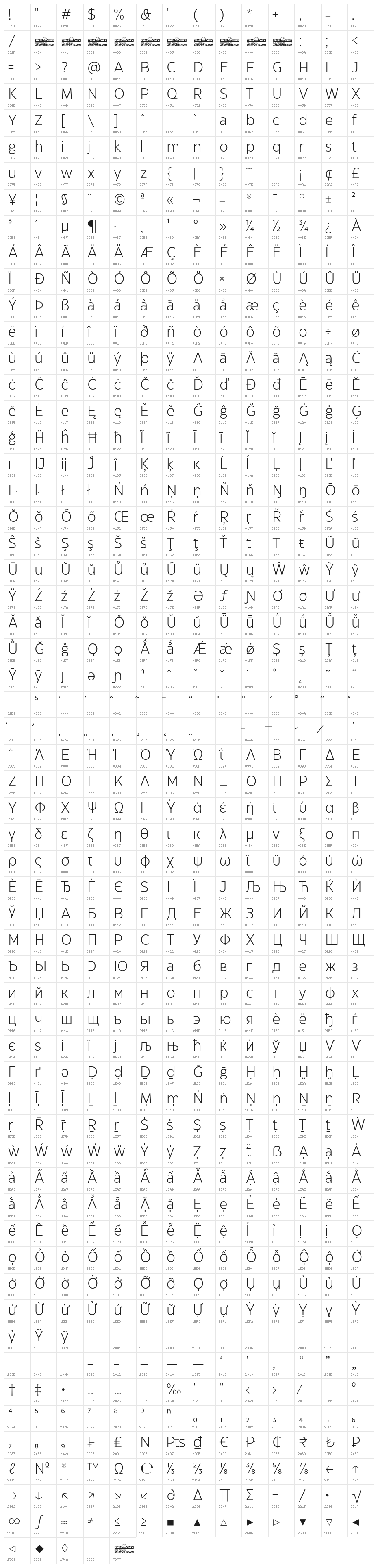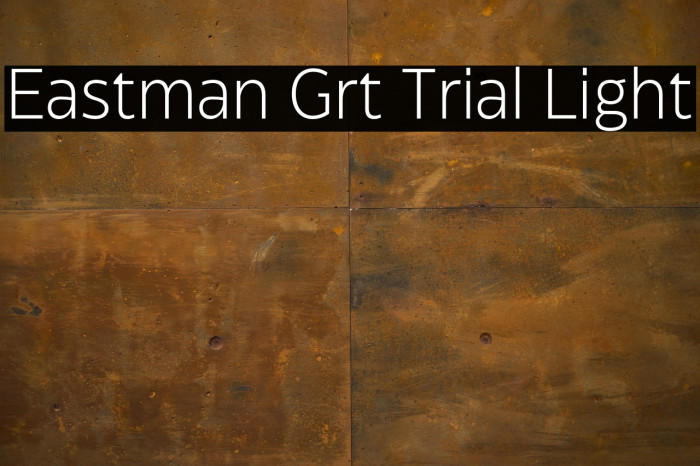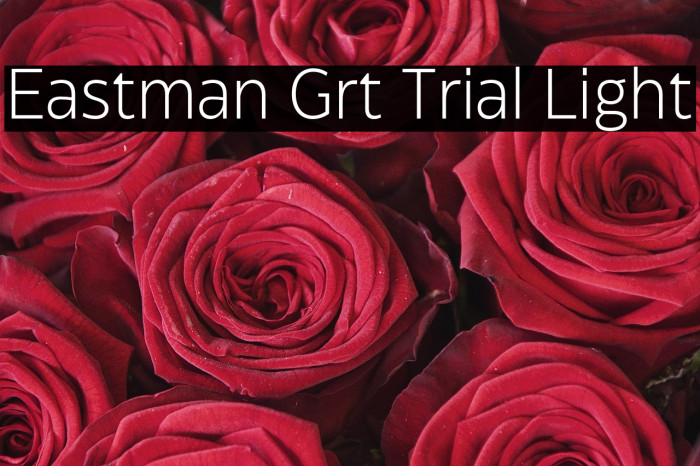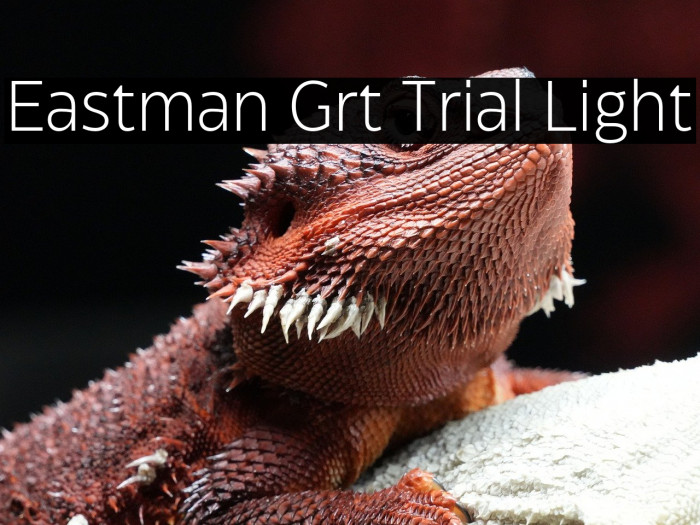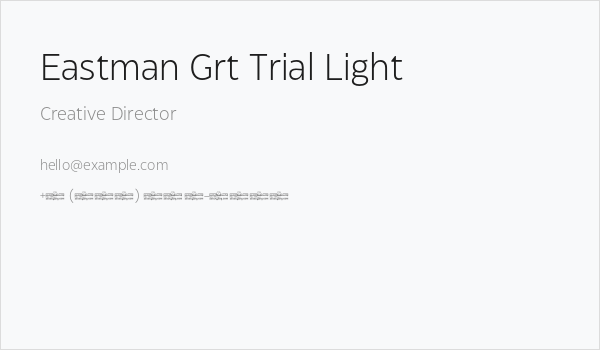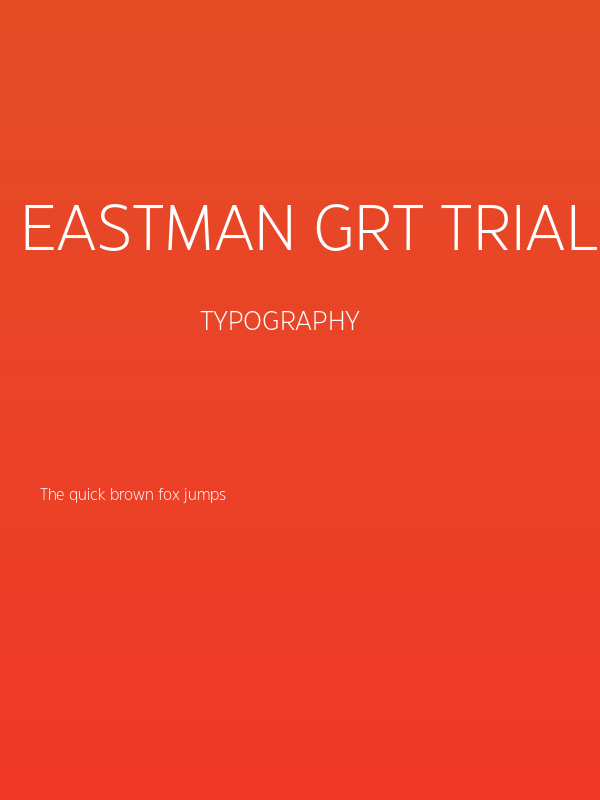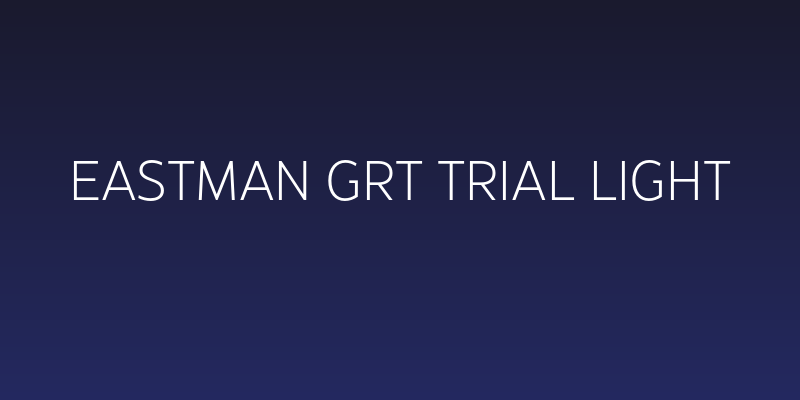
Eastman Grt Trial Light Font
Eastman Grt Trial Light Description
This font features a clean and modern sans-serif design, characterized by its simplicity and clarity. The letterforms are uniform and geometric, with consistent stroke widths that provide a harmonious appearance. The uppercase and lowercase letters are well-proportioned, offering excellent readability. The numerals and special characters maintain the same aesthetic, ensuring a cohesive look across all text elements. This font is versatile, suitable for both digital and print media, and can be used effectively in various design contexts.
| Proposed Projects | Ideal for branding, web design, corporate materials, and editorial layouts. |